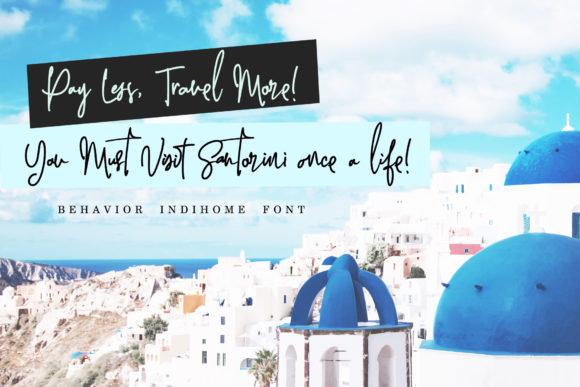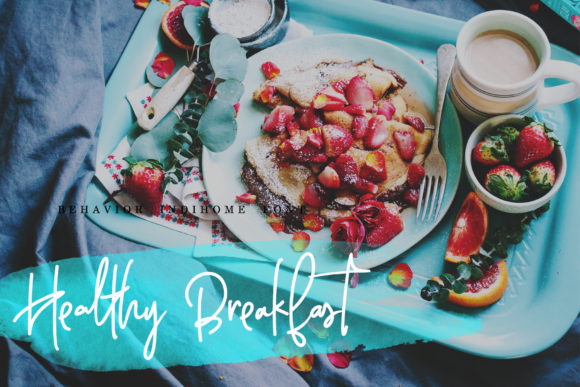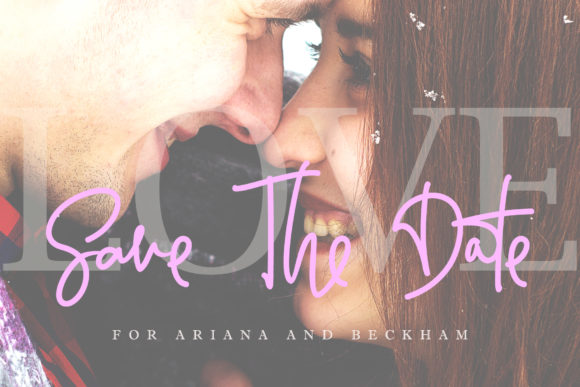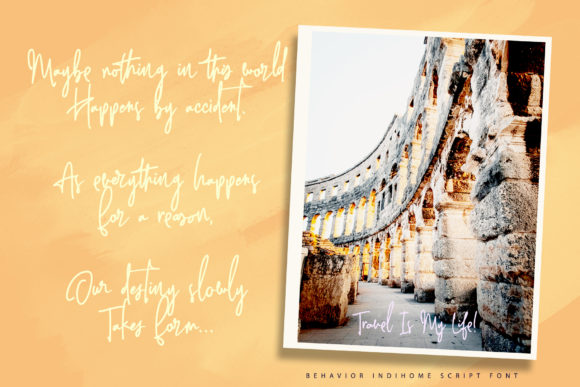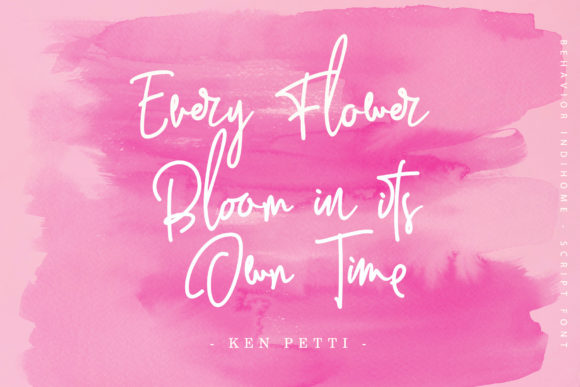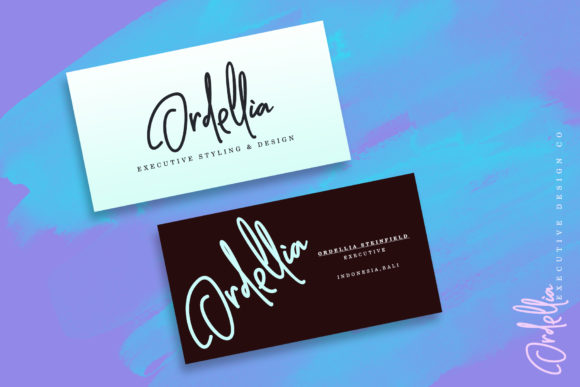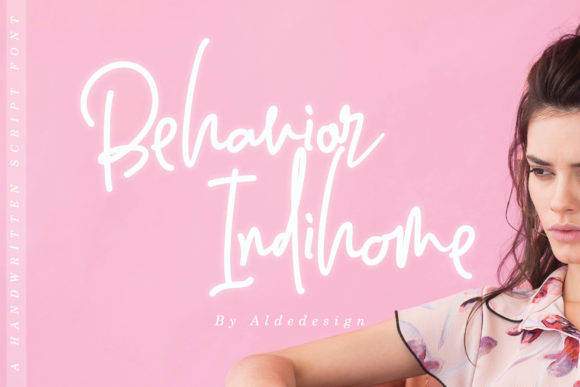
Introducing Behavior Indihome Font: Elevate Your Designs with Elegance
The Behavior Indihome font is a stunning signature font that exudes an air of sophistication and class. Its unique blend of natural and elegant touches makes it an excellent choice for a wide range of design applications. Whether you’re a designer, crafter, or simply someone looking to add a personal touch to your projects, this font is sure to impress.
What Makes Behavior Indihome Font Stand Out?
So, what sets the Behavior Indihome font apart from other fonts in its class? For starters, its natural yet elegant feel makes it incredibly versatile. This font is perfect for adding a touch of sophistication to any design, from wedding stationery to business cards, and everything in between.
One of the standout features of the Behavior Indihome font is its ease of use. Whether you’re a seasoned designer or just starting out, this font is incredibly easy to work with. Its clean lines and simple curves make it a breeze to read and understand, even at small sizes.
Endless Design Possibilities with Behavior Indihome Font
The possibilities are endless when it comes to using the Behavior Indihome font in your designs. Here are just a few ideas to get you started:
- Watermarks on branding: Add a touch of elegance to your brand’s watermark with the Behavior Indihome font. Its subtle yet sophisticated feel makes it perfect for adding a professional touch to your designs.
- Wedding stationery: Make your wedding stationery stand out with the Behavior Indihome font. Its natural and elegant feel makes it perfect for wedding invitations, save-the-date cards, and more.
- Photography: Add a touch of class to your photography with the Behavior Indihome font. Use it to create beautiful captions, watermarks, or even photo overlays.
- Signatures: Elevate your signature with the Behavior Indihome font. Its elegant feel makes it perfect for adding a personal touch to your emails, letters, and more.
- Logo designs: Create a stunning logo with the Behavior Indihome font. Its clean lines and simple curves make it easy to read and understand, even at small sizes.
- Album covers: Make your album covers stand out with the Behavior Indihome font. Its natural and elegant feel makes it perfect for music albums, photography albums, and more.
- Business cards: Add a touch of sophistication to your business cards with the Behavior Indihome font. Its clean lines and simple curves make it easy to read and understand, even at small sizes.
- Quotes: Create beautiful quote graphics with the Behavior Indihome font. Its elegant feel makes it perfect for adding a touch of inspiration to your designs.
Why Choose Behavior Indihome Font?
So, why choose the Behavior Indihome font over other fonts in its class? Here are just a few reasons:
- Unique and exclusive: The Behavior Indihome font is a one-of-a-kind font that will make your designs stand out from the crowd.
- Elegant and sophisticated: This font exudes an air of elegance and sophistication, making it perfect for high-end designs.
- Easy to use: The Behavior Indihome font is incredibly easy to work with, even for those who are new to design.
- Versatile: This font is perfect for a wide range of design applications, from wedding stationery to business cards and more.
| Font Name | Behavior Indihome Font |
| Author | aldedesign |
In conclusion, the Behavior Indihome font is an amazing signature font that is sure to elevate your designs to the next level. Its natural yet elegant feel, ease of use, and versatility make it a great choice for designers, crafters, and anyone looking to add a personal touch to their projects. Whether you’re looking to create stunning watermarks, wedding stationery, photography captions, or more, this font is sure to impress.